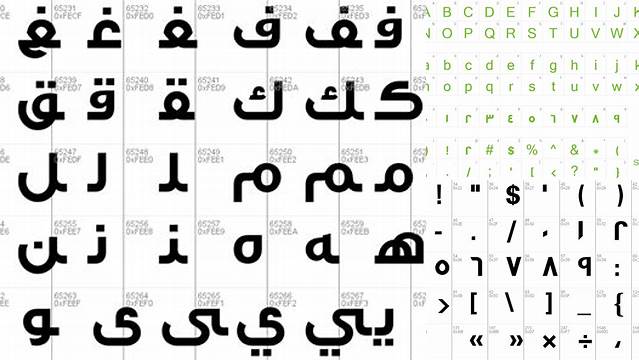
Hey guys! Are you on the hunt for that perfect font to make your designs pop? Look no further! In this article, we're diving deep into the world of GE SS Unique Bold Font, a typeface that can seriously level up your creative projects. We'll explore what makes it so special, where you can snag it for free, and how to use it like a pro. So, buckle up and get ready to unleash your inner font enthusiast!
GE SS Unique Bold Font is not just another typeface; it's a statement. Its bold nature commands attention, making it ideal for headlines, posters, and branding materials. The uniqueness of its letterforms adds a touch of sophistication and originality that can set your work apart from the crowd. Whether you're designing a sleek, modern website or a vintage-inspired poster, this font can adapt to various styles and themes. One of the key reasons designers love GE SS Unique Bold Font is its versatility. It works beautifully in both digital and print media. Imagine using it for the title of your next e-book, or perhaps for the logo of your startup. The possibilities are endless. Moreover, its readability is top-notch, ensuring that your message is not only visually appealing but also easily digestible. This is crucial for maintaining user engagement and conveying information effectively. When you choose GE SS Unique Bold Font, you're not just selecting a font; you're choosing a tool that can enhance the overall impact and effectiveness of your designs. It’s a font that speaks volumes, allowing you to communicate your ideas with clarity and style. The font's character set includes a wide range of glyphs, supporting multiple languages and special characters. This makes it a truly global font, suitable for projects targeting diverse audiences. Its design incorporates subtle nuances that give it a distinctive personality, setting it apart from generic bold fonts. In short, GE SS Unique Bold Font is a powerful asset for any designer looking to make a bold statement. So, let's get started and see how you can download and use this fantastic font for free!
What Makes GE SS Unique Bold Font Stand Out?
So, what's the big deal about GE SS Unique Bold Font? What makes it so special compared to the millions of other fonts out there? Well, let’s break it down, piece by piece. First off, the sheer boldness of this font is a major draw. It’s not just bold; it’s powerfully bold. This makes it perfect for grabbing attention, whether you’re designing a poster, a website header, or even just a social media graphic. Its strong presence ensures that your message is front and center. But it’s not just about being bold. The unique design of the letterforms sets it apart. Each character has been carefully crafted with a distinctive flair, giving the font a personality that’s hard to ignore. This uniqueness adds a touch of sophistication and originality to your designs, making them stand out from the crowd. Think of it as the secret sauce that elevates your work from good to great. The versatility of GE SS Unique Bold Font is another key advantage. It’s not a one-trick pony. This font can adapt to a wide range of styles and themes. From sleek and modern to vintage and rustic, it fits right in. This makes it a valuable asset for designers who work on diverse projects. Whether you’re designing a logo, a website, or a print ad, this font can deliver the impact you need. Its adaptability ensures that it remains a go-to choice for various creative endeavors. Moreover, GE SS Unique Bold Font is highly readable, even at smaller sizes. This is crucial for ensuring that your message is easily understood. After all, what’s the point of a beautiful font if no one can read it? Its clarity and legibility make it ideal for body text as well as headlines. This versatility extends its usefulness, making it a practical choice for all types of design projects. Its design also incorporates subtle details that enhance its overall appeal. From the slight curves to the perfectly balanced proportions, every aspect of the font has been carefully considered. These details contribute to its polished and professional look, making it a font that you can rely on for high-quality work. In summary, GE SS Unique Bold Font stands out due to its powerful boldness, unique design, versatility, and readability. It’s a font that combines style and substance, making it a valuable tool for any designer.
Tips for Using Bold Fonts Effectively
So you've got GE SS Unique Bold Font all set up, ready to rock. But hold on a sec! Just having a great font isn't enough. You need to know how to use it effectively to really make your designs shine. Let’s dive into some tips and tricks for using bold fonts like a pro. First off, contrast is key. Bold fonts are attention-grabbers, so you want to use them strategically to highlight important information. Pair them with lighter, more subtle fonts to create a visual hierarchy. This helps guide the viewer's eye and makes your design more engaging. For example, you could use GE SS Unique Bold Font for your headlines and a simple sans-serif font for your body text. This creates a clear distinction between the two and makes your content more readable. Don't overdo it with the boldness. Using too many bold elements in your design can create visual clutter and make it hard for the viewer to focus. Stick to using bold fonts sparingly, for key words, titles, or calls to action. Less is often more when it comes to typography. Think of bold fonts as a seasoning – a little bit can add a lot of flavor, but too much can ruin the dish. Pay attention to font pairing. Not all fonts play well together. When pairing bold fonts with other fonts, choose fonts that complement each other in terms of style, weight, and spacing. A good rule of thumb is to pair a bold sans-serif font with a lighter serif font, or vice versa. Experiment with different combinations until you find a pairing that works well for your design. Consider the context of your design. The font you choose should be appropriate for the overall tone and message of your design. GE SS Unique Bold Font is a versatile font that can work in a variety of contexts, but it's not always the best choice for every project. For example, if you're designing a formal invitation, a more elegant and refined font might be more appropriate. Test your designs on different devices and screen sizes. Fonts can look different depending on the device and screen resolution. Make sure to test your designs on a variety of devices to ensure that your fonts are rendering correctly and that your text is legible. This is especially important for web design, where your designs will be viewed on a wide range of devices. Remember, typography is an art form, so don't be afraid to experiment and try new things. With a little practice and creativity, you can use bold fonts to create stunning designs that captivate and engage your audience.
Alright, guys, that's a wrap! We've covered everything you need to know about GE SS Unique Bold Font, from its unique characteristics to where you can find it for free and how to use it effectively. Remember, a great font can make all the difference in your design projects, so choose wisely and use it strategically. Happy designing, and may your creations always be bold and beautiful! The GE SS Unique Bold Font offers a blend of style and functionality, suitable for various design needs. Whether you're crafting a website, designing a logo, or creating marketing materials, this font can add a unique touch that captures attention. By following the tips and guidelines in this article, you can maximize the impact of your typography, ensuring your message is not only seen but also remembered. Embrace the power of bold fonts and let your creativity shine!